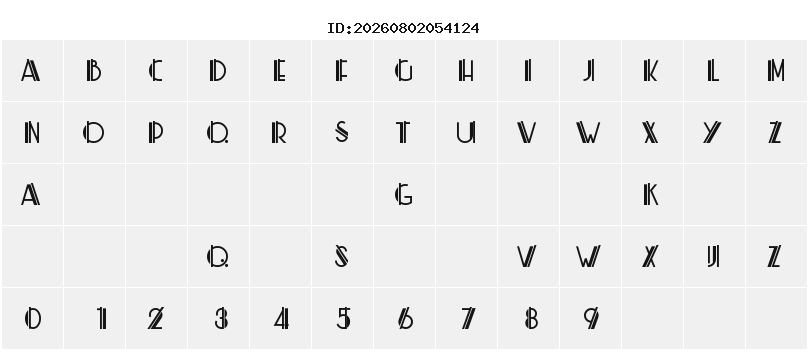
• Font Name: ML ZigZag KK
• Designer: Marcia Loeb/koeiekat
• Description: Based on a original design by Marcia Loeb (1975). Sister font of ML Rainbow KK v1.2. Digitized and hand-kerned by koeiekat. Capitals only. Numbers, basic punctuation, Western Latin accents and some alternates added. Alternate A's under a, + and =. Alternate G under g. Alternate K under k. Alternate Q under q. Alternate S under s. Alternate V's under v, ( and ). Alternate W's under w, [ and ]. Dutch IJ under y.
ML ZigZag KK.ttf is a modern, elegant sans-serif font designed for ultimate readability and visual harmony. Perfect for branding, headlines, web design, and print materials.